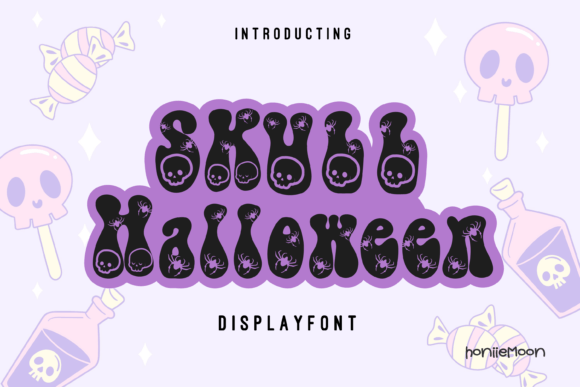
Prepare to unleash your creativity and embark on a spellbinding adventure with our captivating Skull Halloween Font! This enchanting display font is meticulously crafted to ignite your imagination and transform your designs into a captivating wonderland.
Step into a realm where cuteness and merriment intertwine, where Skull Halloween's playful spirit dances across your creations. Its charming curves and lively strokes evoke a sense of whimsy that will captivate the hearts of all who encounter it.
Unleash the power of Skull Halloween to elevate your web advertising campaigns to new heights. This font's unique charm and eye-catching presence will grab attention and leave a lasting impression on your audience. Let your message take center stage with Skull Halloween, the font that turns every word into a captivating spectacle.
Whether you're crafting invitations for a thrilling Halloween party or creating vibrant social media graphics, Skull Halloween stands ready to elevate your projects. Its versatility knows no bounds, transforming ordinary designs into extraordinary masterpieces.
Experience the magic of Skull Halloween today and prepare to be spellbound by its enchanting beauty. Let your creativity take flight and let Skull Halloween be your guiding light towards design excellence.